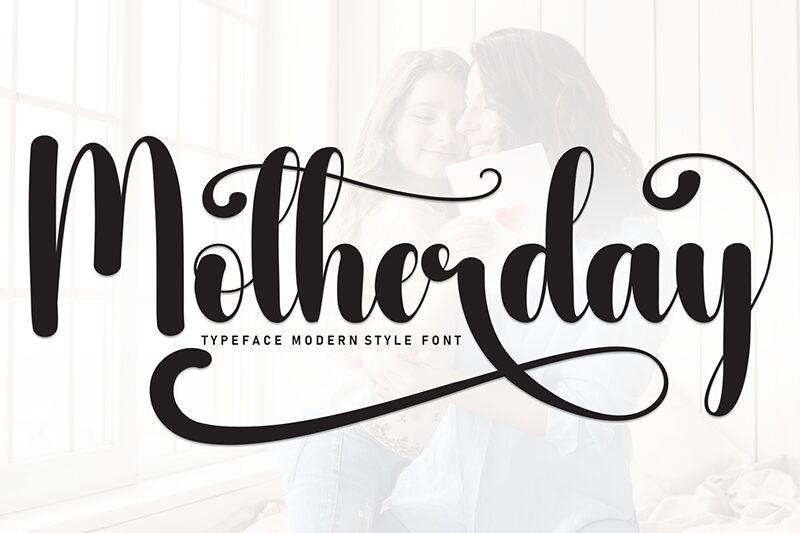
Motherday font by Andi Moz is an elegant brush choice with both decorative and flowing features. It’s expressive in all its parts and brings characters to life for readers. Use it for contemporary font applications or allow it to succeed in classy retro displays; this free calligraphy font can handle both providing the best possible showcases.